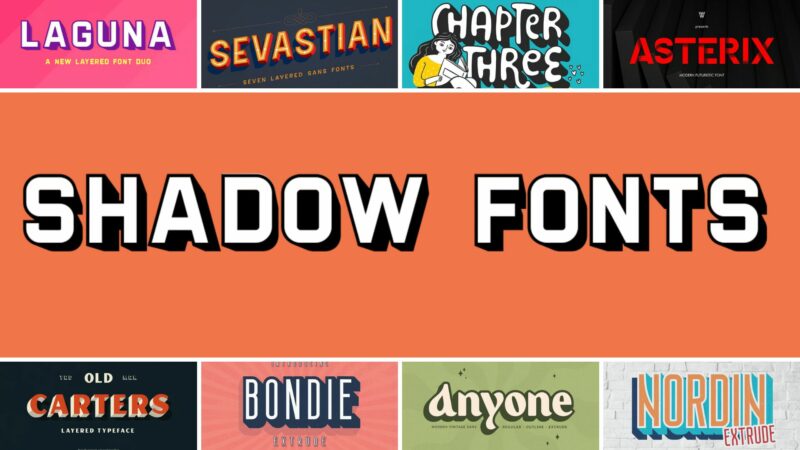
The Most Dynamic Shadow Fonts of 2025
Herona – Esport Logo Font
Herona is a bold, modern sans-serif font designed specifically for esports and gaming logos. Its sharp edges and dynamic letterforms create a sense of energy and competitiveness, perfect for capturing the spirit of digital sports.
Nordin Extrude Font Family
Nordin Extrude is a condensed sans-serif font family with a unique extruded effect. Its dimensional appearance adds depth and visual interest, making it ideal for headlines, posters, and branding projects that require a strong, industrial feel.
Carneval
Carneval is a vintage-inspired serif font that evokes the charm of old-world labels and signage. Its ornate details and elegant curves make it perfect for creating designs with a nostalgic or sophisticated atmosphere, particularly in packaging and branding projects.
Anyone Vintage Font
Anyone Vintage is a premium sans-serif font with a weathered, retro feel. Its slightly distressed appearance adds character and authenticity to designs, making it ideal for creating vintage-inspired logos, posters, and branding materials.
Bondie Extrude Font Family
Bondie Extrude is a condensed sans-serif font family featuring a striking extruded effect. Its bold, three-dimensional appearance makes it perfect for creating eye-catching headlines and logos, especially in designs that require a strong, modern impact.
Chapter Three Font
Chapter Three is a playful decorative font with a bouncy character and shadow effect. Its lively appearance and unique style make it perfect for children’s books, fun branding projects, or any design that needs a touch of whimsy and personality.
Asterix | 3D fonts | Futuristic
Asterix is a bold, futuristic 3D font that commands attention. Its dimensional design and sci-fi aesthetic make it ideal for creating striking headers, movie posters, or any project that requires a cutting-edge, technology-inspired or cinematic look.
Ghost Cove | Omega Sans | Font Duo
Ghost Cove and Omega Sans form a minimalist sans-serif font duo. The combination of thin and regular weights provides versatility for creating clean, modern designs, perfect for branding, editorial layouts, and digital interfaces.
Golden Silver
Golden Silver is an attention-grabbing sans-serif font designed to mimic caution tape or warning signs. Its bold, striped appearance makes it ideal for creating impactful headlines, safety messages, or designs that need to convey urgency and importance.
Bouchers Type Collection
The Bouchers Type Collection is a versatile set of fonts including decorative, serif, script, handwritten, and sans-serif styles. This comprehensive collection offers designers a wide range of options for creating diverse and cohesive typographic designs across various projects.
Bouchers Layered Duo
Bouchers Layered Duo combines script and sans-serif styles in a layered format, allowing for creative vintage-inspired lettering. This font is perfect for creating eye-catching headlines, logos, and custom typography with a handcrafted, retro feel.
Mr Chumley font
Mr Chumley is a grunge-style sans-serif font with a weathered, distressed appearance. Its rough texture and irregular edges make it ideal for creating designs with an edgy, urban, or vintage aesthetic, particularly in posters, album covers, or street-style branding.
BLACK & SHADOW
BLACK & SHADOW is a bold script font with a dramatic shadow effect. Its brush-like strokes and dynamic appearance make it perfect for creating eye-catching headlines, logos, or any design that requires a strong, expressive typographic statement.
Arkland Monoline + Shadow
Arkland Monoline + Shadow is a handwritten script font with a clean monoline style and optional shadow. Its hand-drawn appearance adds a personal touch to designs, making it suitable for branding, packaging, and projects that require a friendly, approachable feel.
Rolimake – Shadow Display Font
Rolimake is a bold display font featuring a striking shadow effect. Its strong presence and dimensional appearance make it ideal for creating impactful headlines, posters, and branding materials that demand attention and visual interest.
Modster Script + Shadow
Modster Script + Shadow is a beautiful handcrafted script font with an optional shadow effect. Its flowing lines and organic feel make it perfect for creating elegant, personalized designs for invitations, branding, and projects that require a touch of sophistication.
Shadow fonts offer a powerful tool for adding depth and visual interest to your designs. Whether you’re working with traditional shadow fonts or exploring the modern possibilities of box shadow fonts, the key is understanding how and when to use them effectively.
Remember, like any design element, shadow fonts work best when they serve a clear purpose in your overall design strategy. Use them thoughtfully, and they’ll help your work stand out in all the right ways.